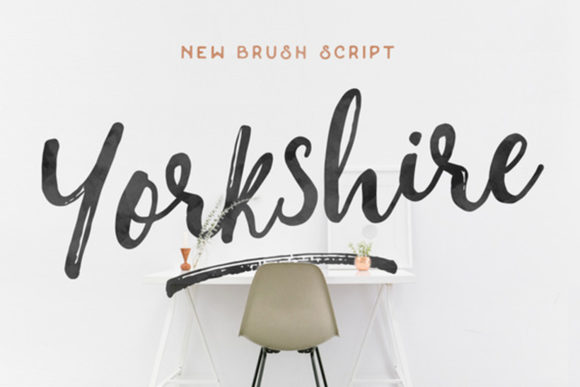
Unleash your creativity with Yorkshire Font – the captivating script font designed to add a touch of whimsy and charm to your artistic creations. Birthed from the skilled strokes of a brush pen, Yorkshire exudes a casual and playful vibe that will elevate your designs to new heights.
Step into a world of boundless possibilities with Yorkshire Font. Whether you're a seasoned designer or just starting your creative journey, this font is your perfect companion. With its playful and effortlessly cool style, Yorkshire adds an irresistible touch of personality to your projects.
Dive into the world of Yorkshire Font and discover a world of creative possibilities. Its versatile nature makes it the perfect choice for a wide range of projects, from logos and branding to social media graphics and handcrafted DIY projects. Let Yorkshire be your artistic muse and watch as your creativity takes flight.
But there's more to Yorkshire Font than just its stylish appearance. It's also incredibly user-friendly, ensuring a smooth and enjoyable design experience. The meticulous craftsmanship behind Yorkshire ensures flawless execution, allowing you to focus on bringing your creative vision to life.